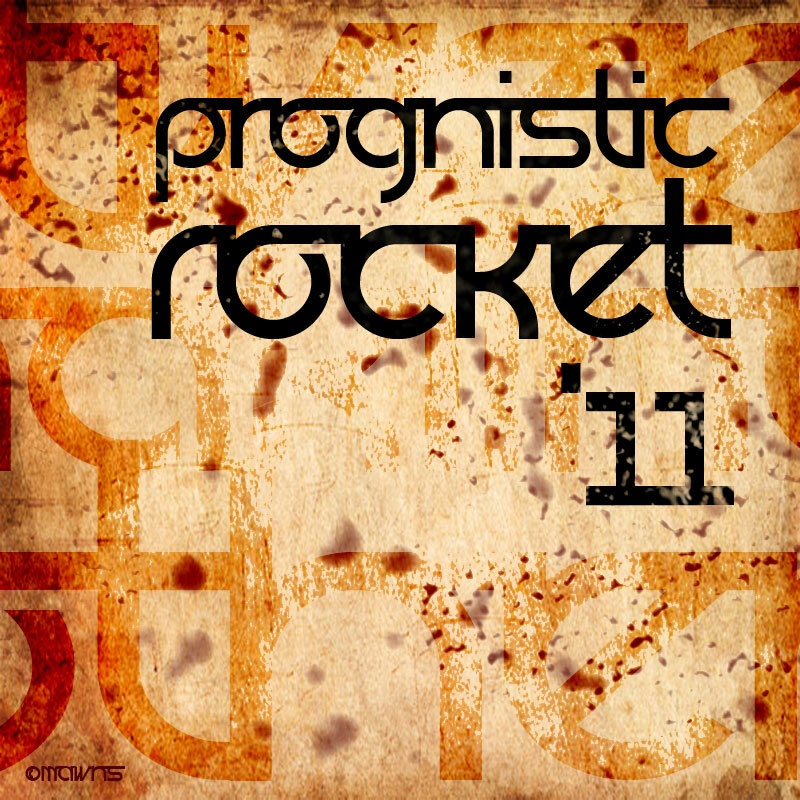
Prognostic by Måns Grebäck is a free Thai-inspired display font with broad monoline letters and a distinctly geometric build. Rounded curves sweep into long horizontal strokes, and several forms rise into tall, spare verticals. The result is clean but deliberately unconventional.
Packaging makes especially good use of its smooth, continuous shapes, particularly for cosmetics, fashion labels, and specialty drinks. On posters and music graphics, the looping silhouettes can echo linear illustration, decorative borders, or curved icon work and become part of a wider graphic motif.